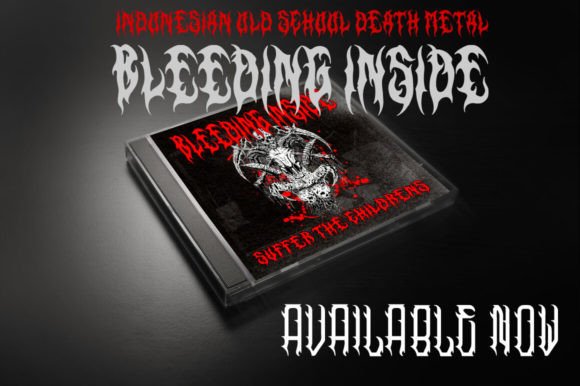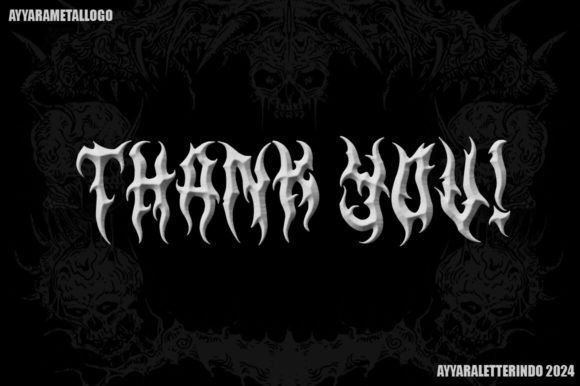
The Birth of a Brutal Branding
Have you ever been stuck trying to come up with the perfect logo for your metal band or brand, only to be met with a sea of uninspiring font options? You’re not alone. The struggle is real, and it’s enough to make even the most devoted metalhead want to scream.
But fear not, fellow creatives, for help is on the horizon. Enter the Immolated Font, a blackletter masterpiece designed specifically for metalheads and designers who dare to be different. This bold, fiery font is more than just a pretty face – it’s a powerful tool for creating unforgettable logos and branding that will leave a lasting impression on your audience.
Immolated Font Key Features
- Font Family: Immolated Font offers a unique, distressed font family with 6 styles, including Regular, Italic, Bold, Bold Italic, Outline, and Shadow.
- Unique Characteristics: Immolated Font features a distressed, charred design with a fiery, molten look, adding a touch of drama and intensity to any text-based design.
- Language Support: Offers comprehensive language support, including Latin, Cyrillic, and Greek alphabets, making it suitable for multilingual designs and applications.
Immolated Font Review
First off, I love the unique, abstract aesthetic of the Immolated Font ✨. It’s definitely a conversation starter and adds a touch of edginess to any design. The bold, distressed strokes and irregular shapes create a sense of energy and dynamism, perfect for projects that require a bold statement. The font is also highly versatile, working well in a variety of contexts, from headers to body text.
One of the standout features of Immolated Font is its ability to add a sense of tension and urgency to designs ✨. This makes it perfect for applications such as warning labels, notifications, or even social media posts.
While Immolated Font is a great addition to any designer’s toolkit, there are a few limitations to be aware of ⚠️.
- Readability can be an issue in smaller font sizes, particularly for body text.
- The font may not be suitable for projects that require a more polished or refined look.
- Some users may find the font’s abstract aesthetic distracting or difficult to read.
In conclusion, Immolated Font is a bold and eye-catching addition to any designer’s toolkit. While it may have some limitations, its unique aesthetic and versatility make it a great choice for projects that require a bold statement. Just be sure to use it judiciously and in contexts where it will truly shine.
Immolated Font is ideal for:
- Luxury branding and marketing materials
- High-end typography and design projects